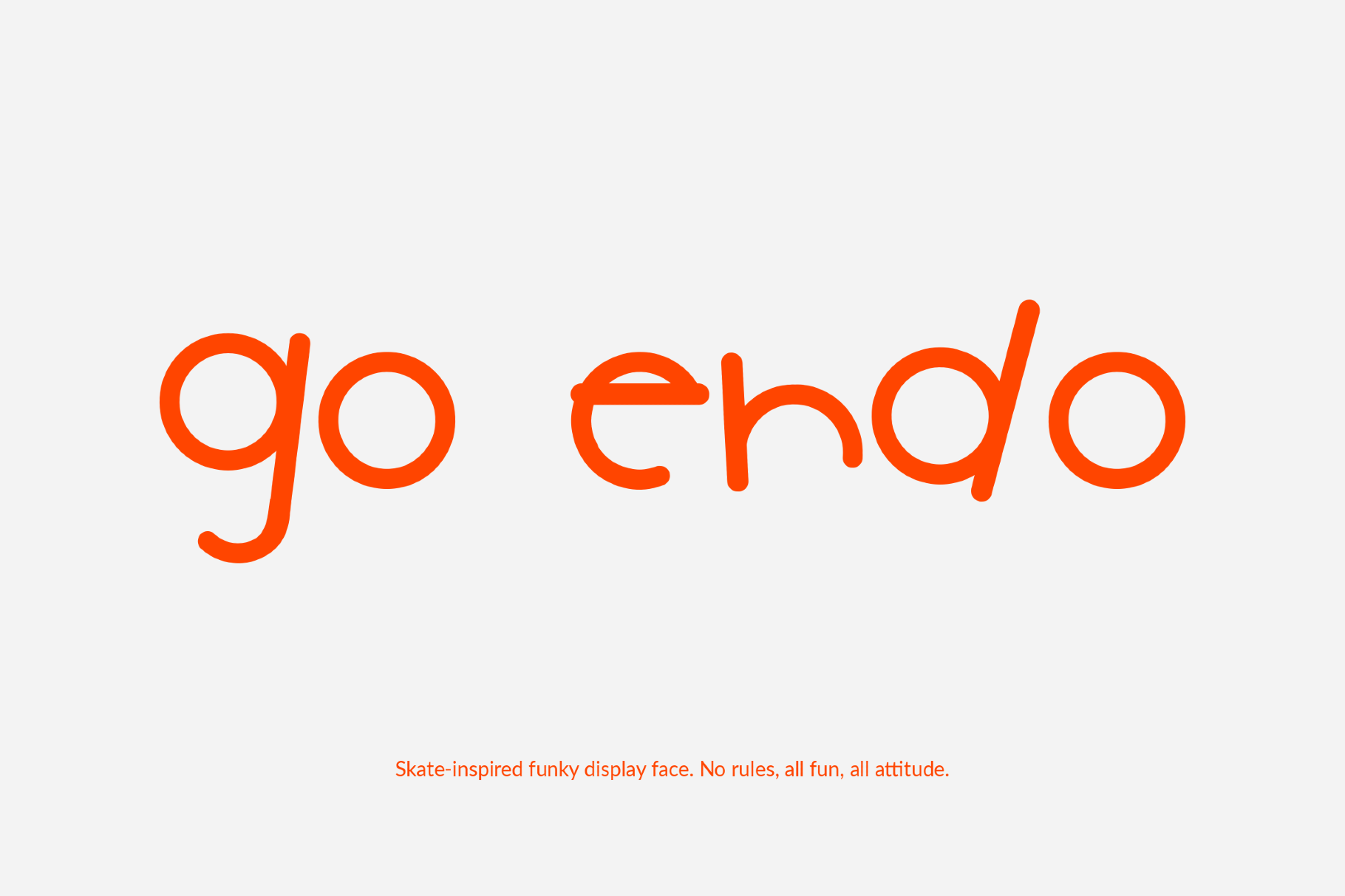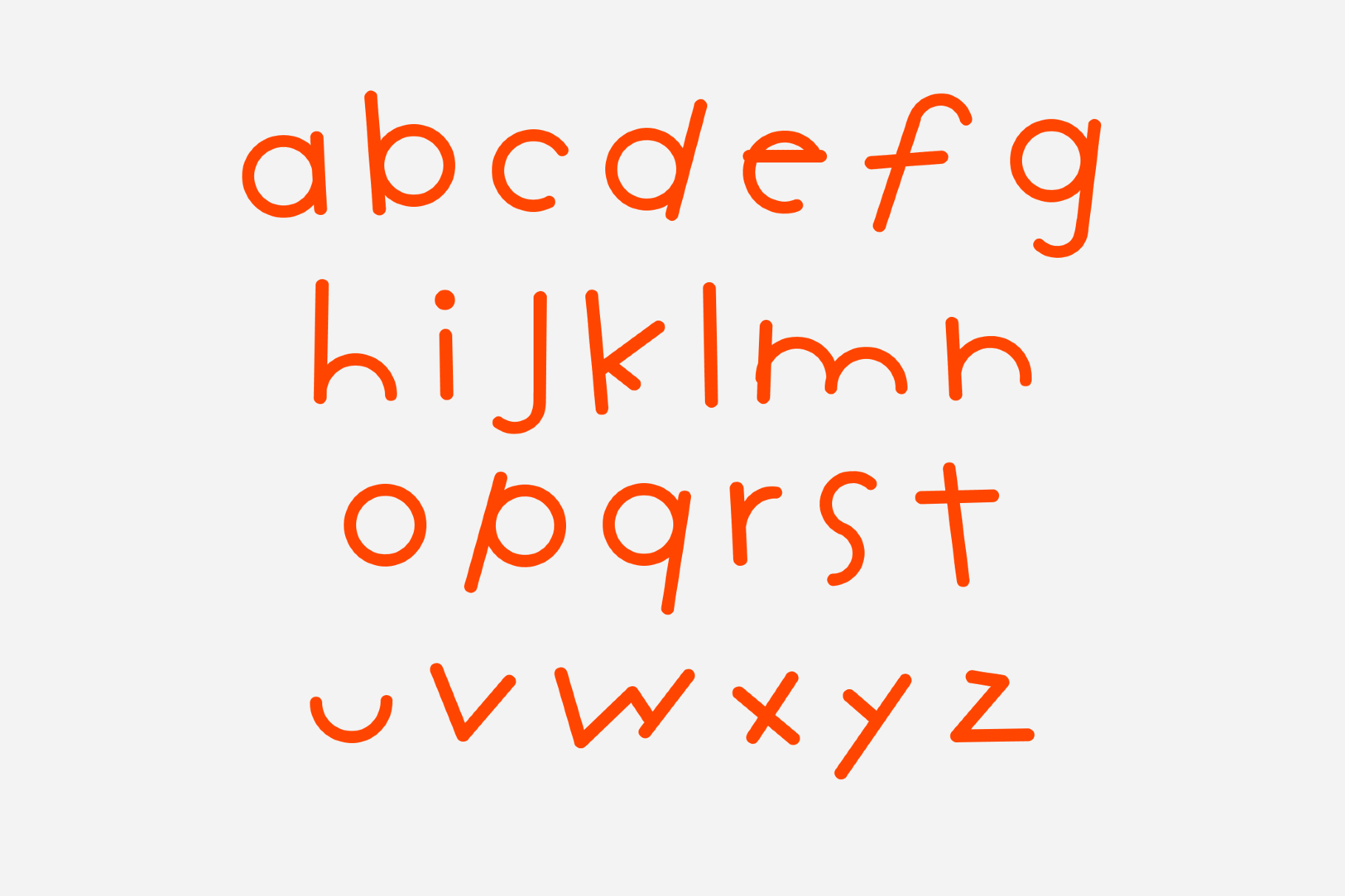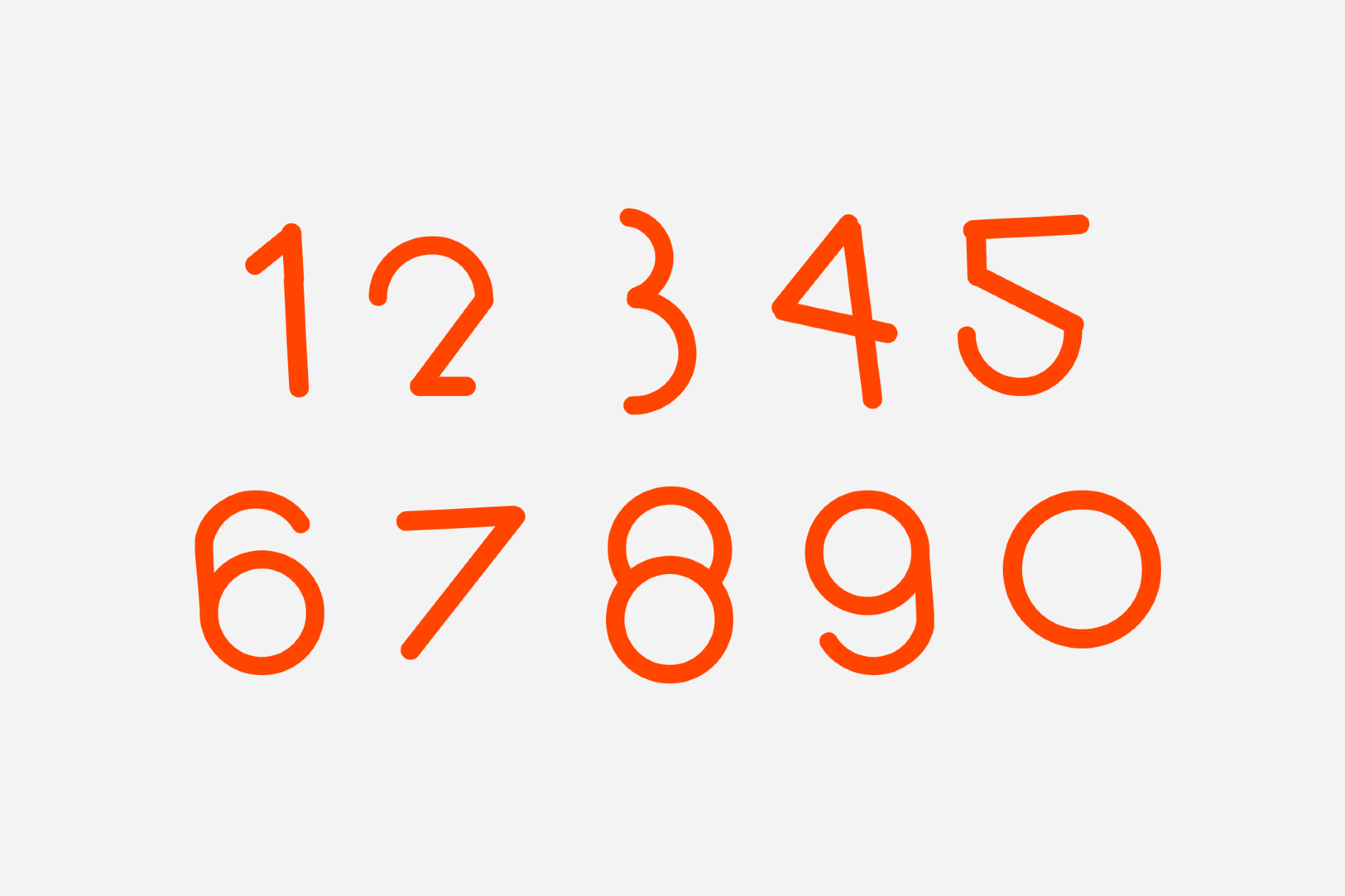
Go Endo - Funny Urban Font
Ehdo is a rounded display sans with the pared-back charm of Bauhaus lettering, early phototypesetting and boutique record-sleeve graphics, its monoline curves softened by a playful off-center touch. This font works beautifully for logo design, packaging, poster titles, editorial headers, café branding, social posts and album artwork.